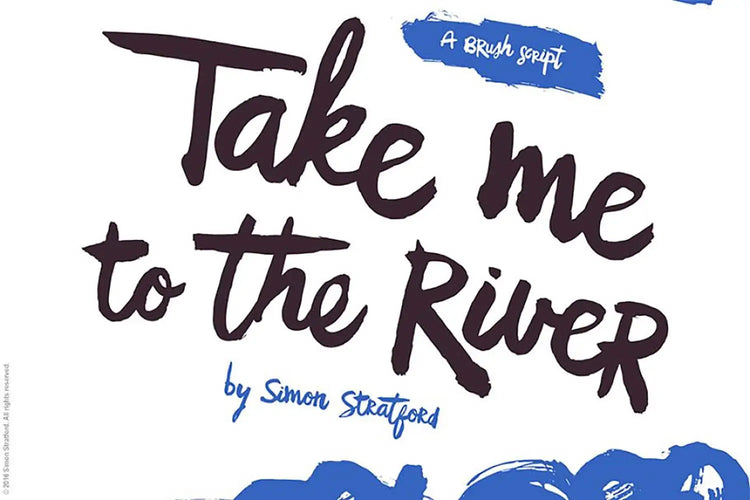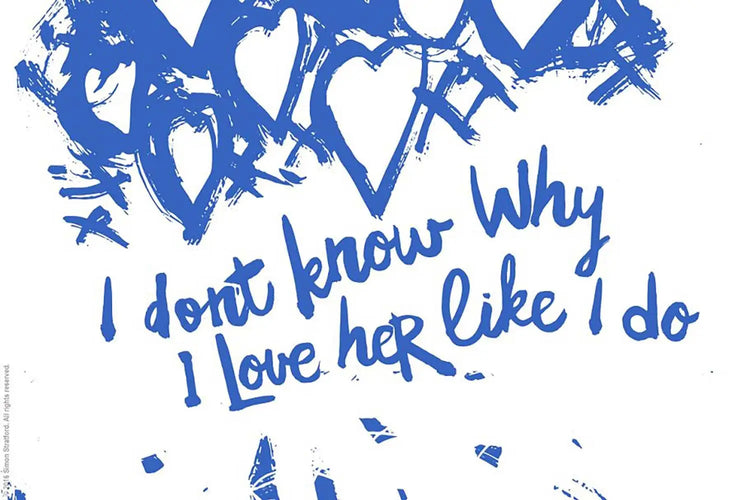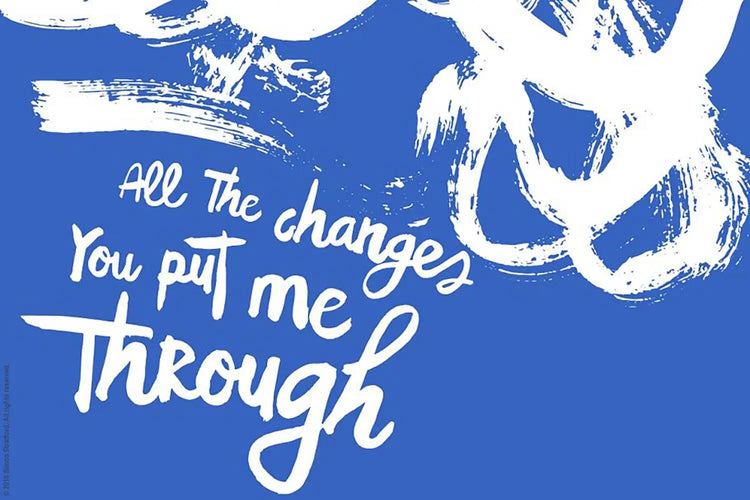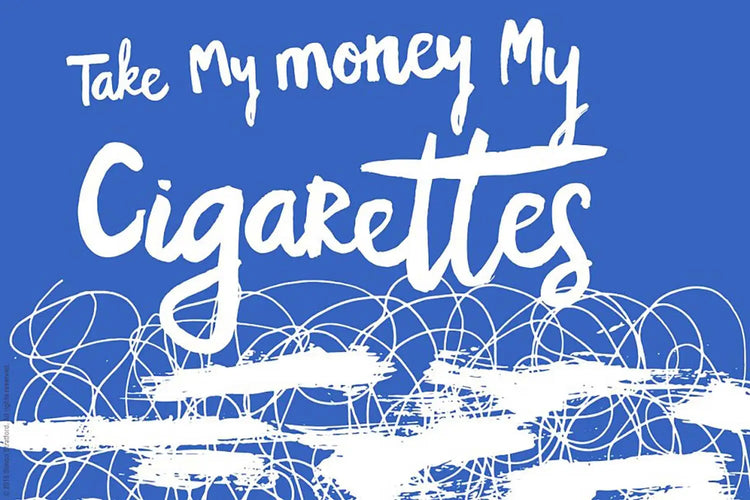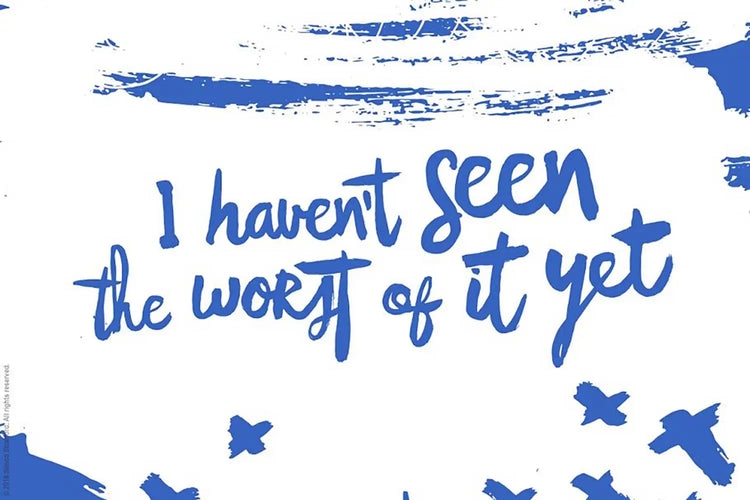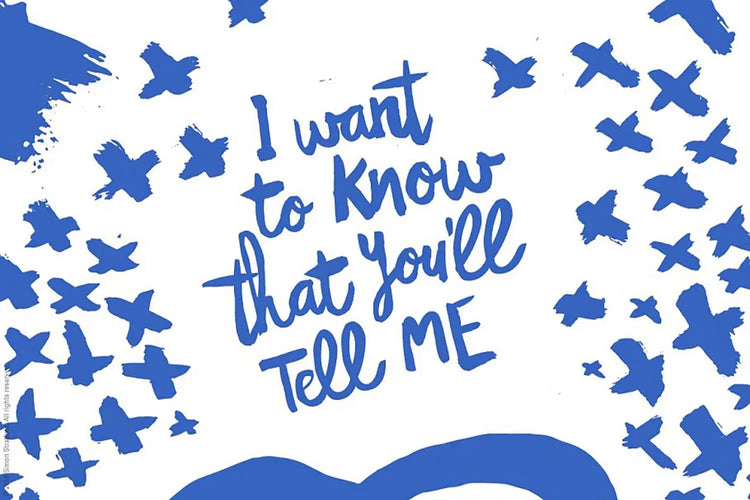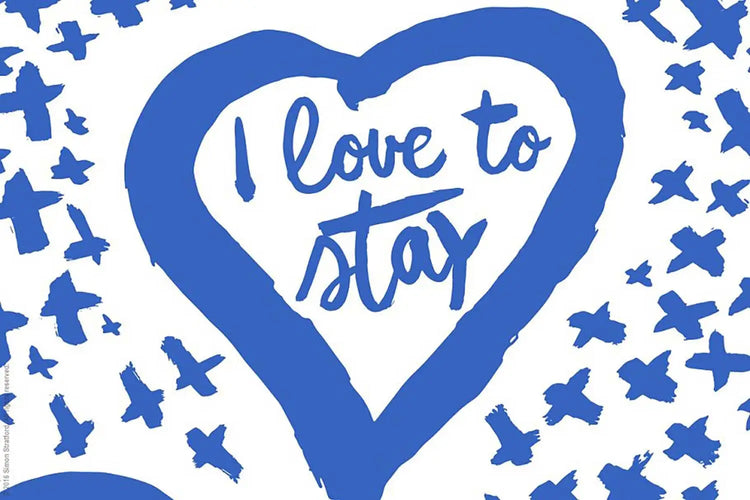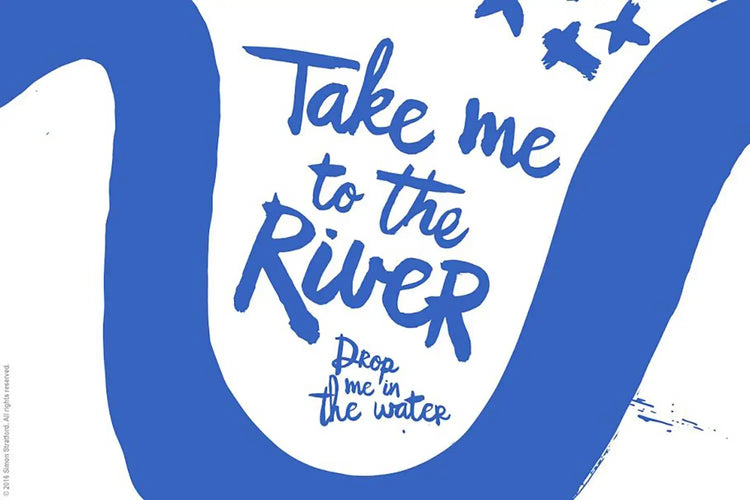
Take me to the river — Flowing Brush Script Font
About Take me to the river
Take me to the river script font—Each glyph was painted using a Chinese calligraphy brush dipped into a pot of black Indian ink. These brushes are different from typical painting brushes and are specifically designed for creating precise and expressive strokes.
The brush helped create a more dynamic hand-drawn look and feel. The strokes are bold and have a motion to them.
Take me to the River is ideal for a variety of designs. Anything from branding and packaging to posters, book covers, and stationery.
Take Me to the River Font Name
Now, about that name – Take Me to the River isn't just any old song title. It was originally penned by the legendary Al Green and Teenie Hodges, and Al Green first recorded it back in 1974. But the version that really stole the show was by Talking Heads in 1978. I mean, they were practically time travelers with their music. So, I snatched the name from that iconic tune, even though I didn't discover their music until my twenties. Better late than never, right?
If Take Me to the River Font Were a Celebrity
If the Take Me to the River font were a celebrity, it would be Aretha Franklin. It possesses a bold and soulful character, just like the Queen of Soul herself. Like Aretha's powerful voice, this font's strokes are strong and expressive, creating a dynamic and hand-drawn look and feel.